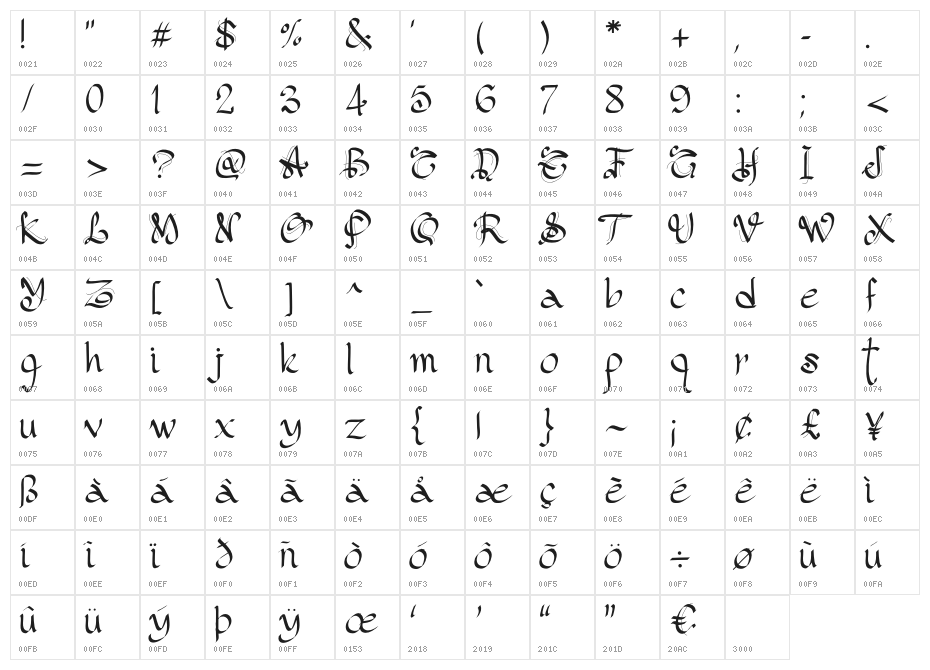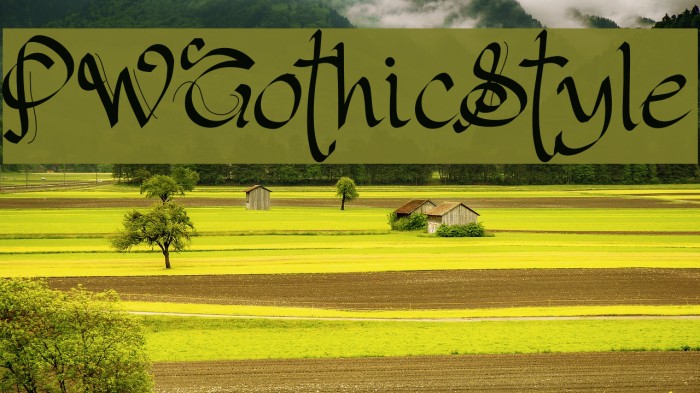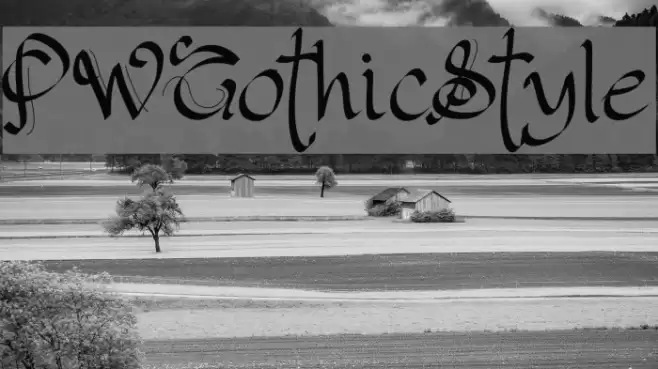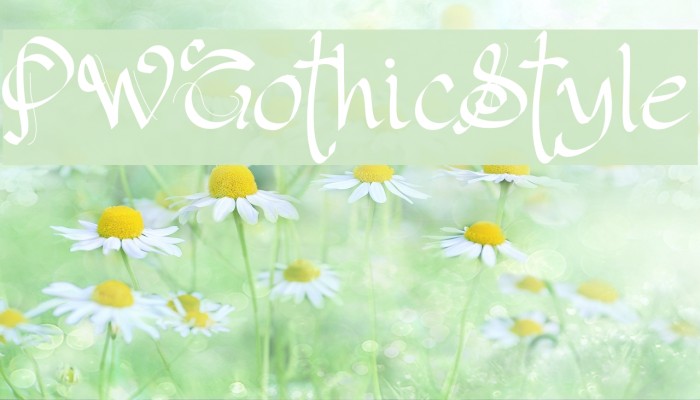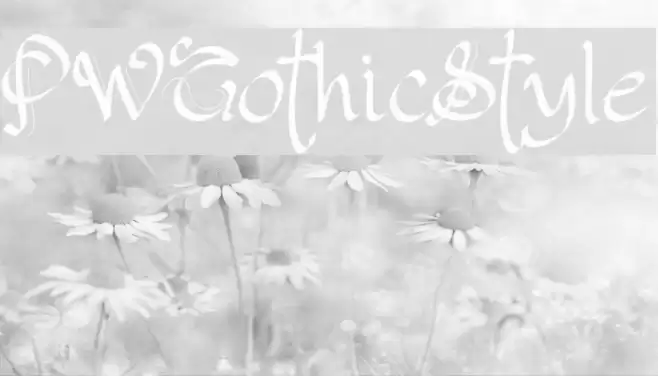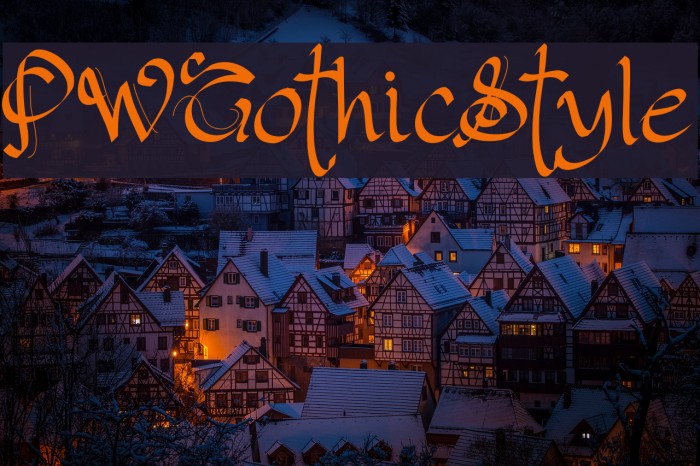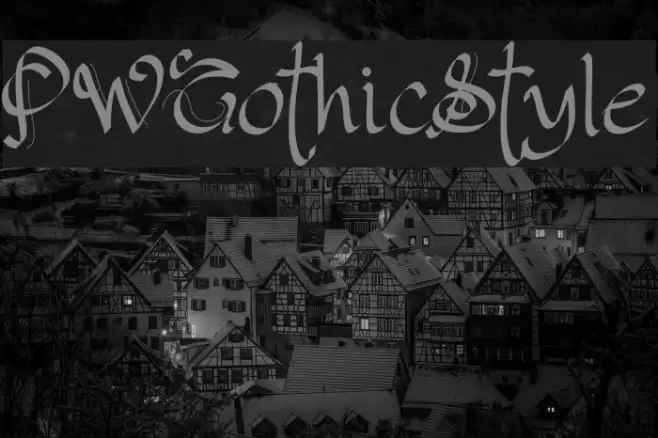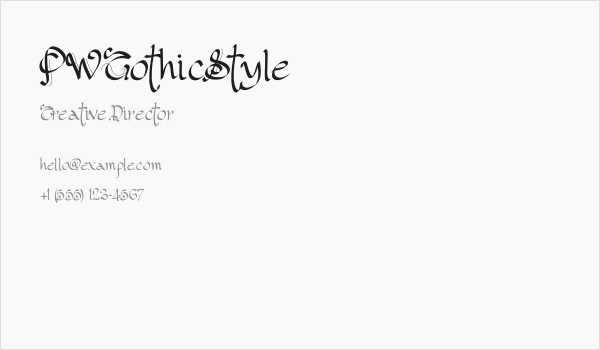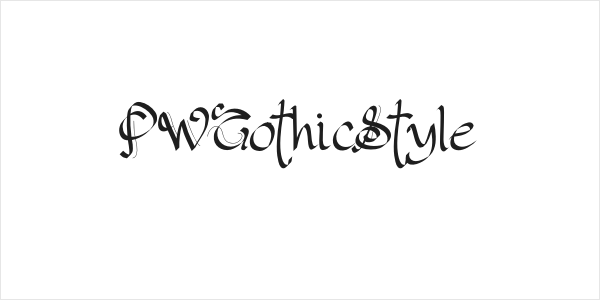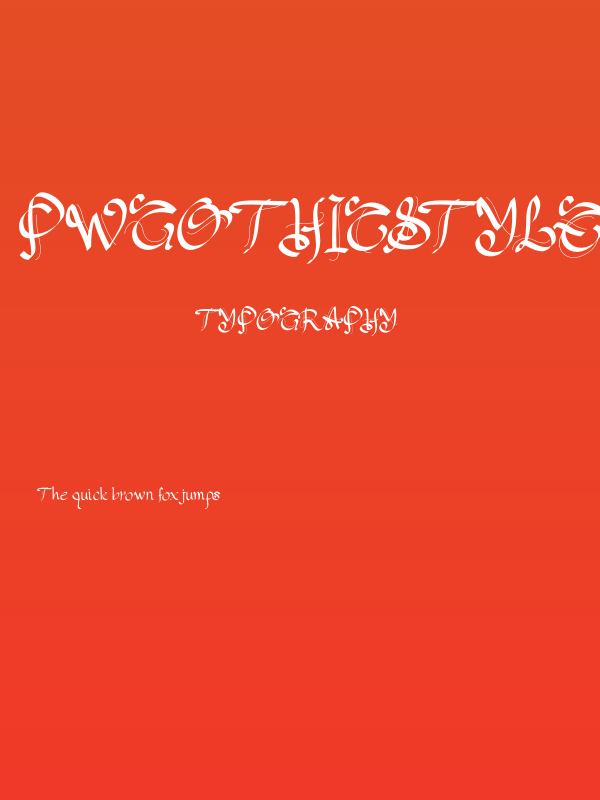
PWGothicStyle Font
PWGothicStyle Description
This font exudes a gothic and ornate style, characterized by its intricate and decorative letterforms. The uppercase letters are particularly elaborate, featuring sharp angles and flourishes that give a sense of drama and elegance. The lowercase letters maintain a consistent style, with smooth curves and pointed edges that complement the uppercase set. The numerals are bold and distinct, matching the overall aesthetic with their unique shapes. Special characters are equally stylized, adding to the font's cohesive appearance. This font is visually striking and commands attention with its artistic flair.
| Overall Style | Gothic, Decorative |
| Use Case | Headlines, Logos, Decorative text |
| Proposed Projects | Ideal for projects requiring a dramatic and elegant touch, such as event invitations, gothic-themed designs, or branding for luxury products. |